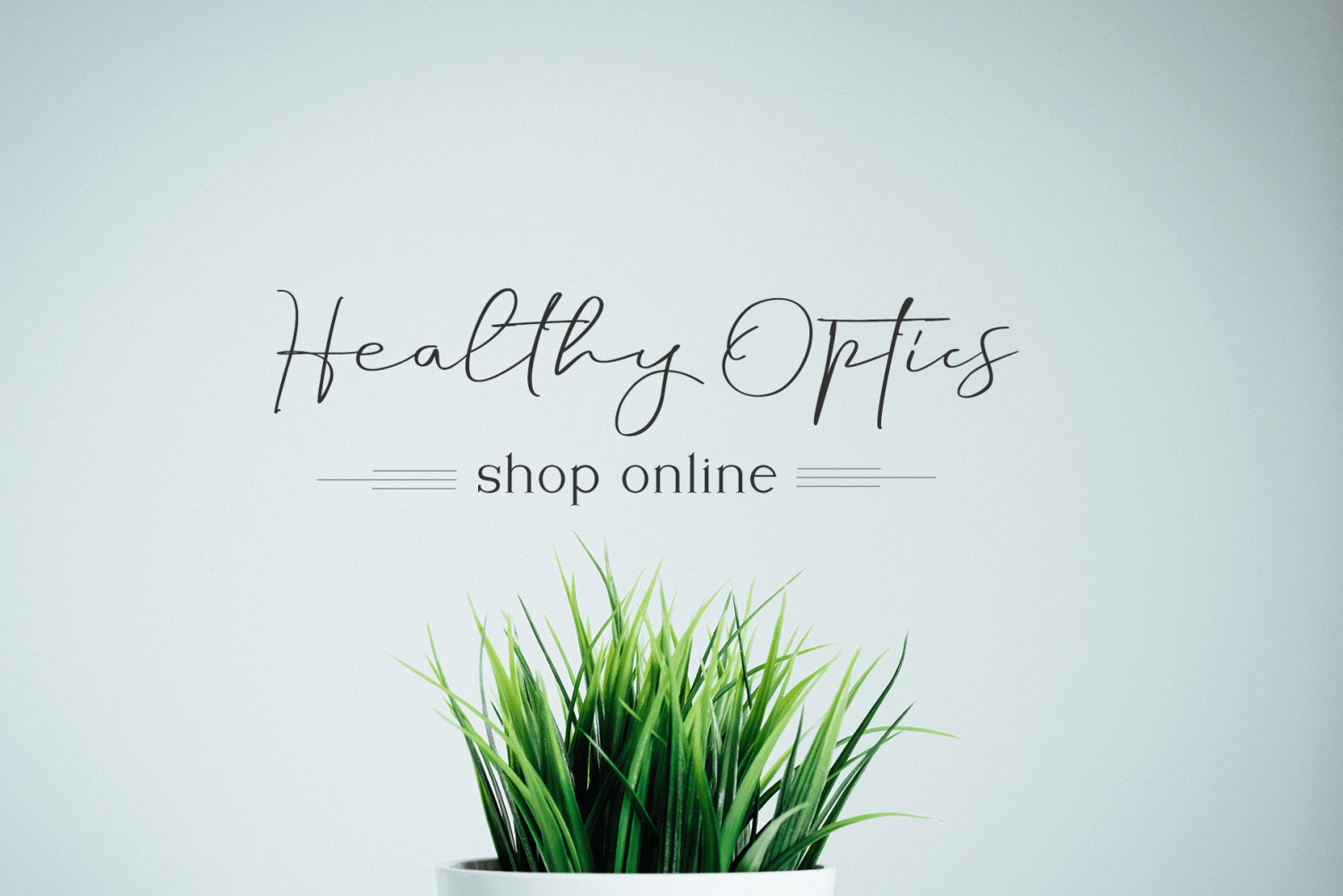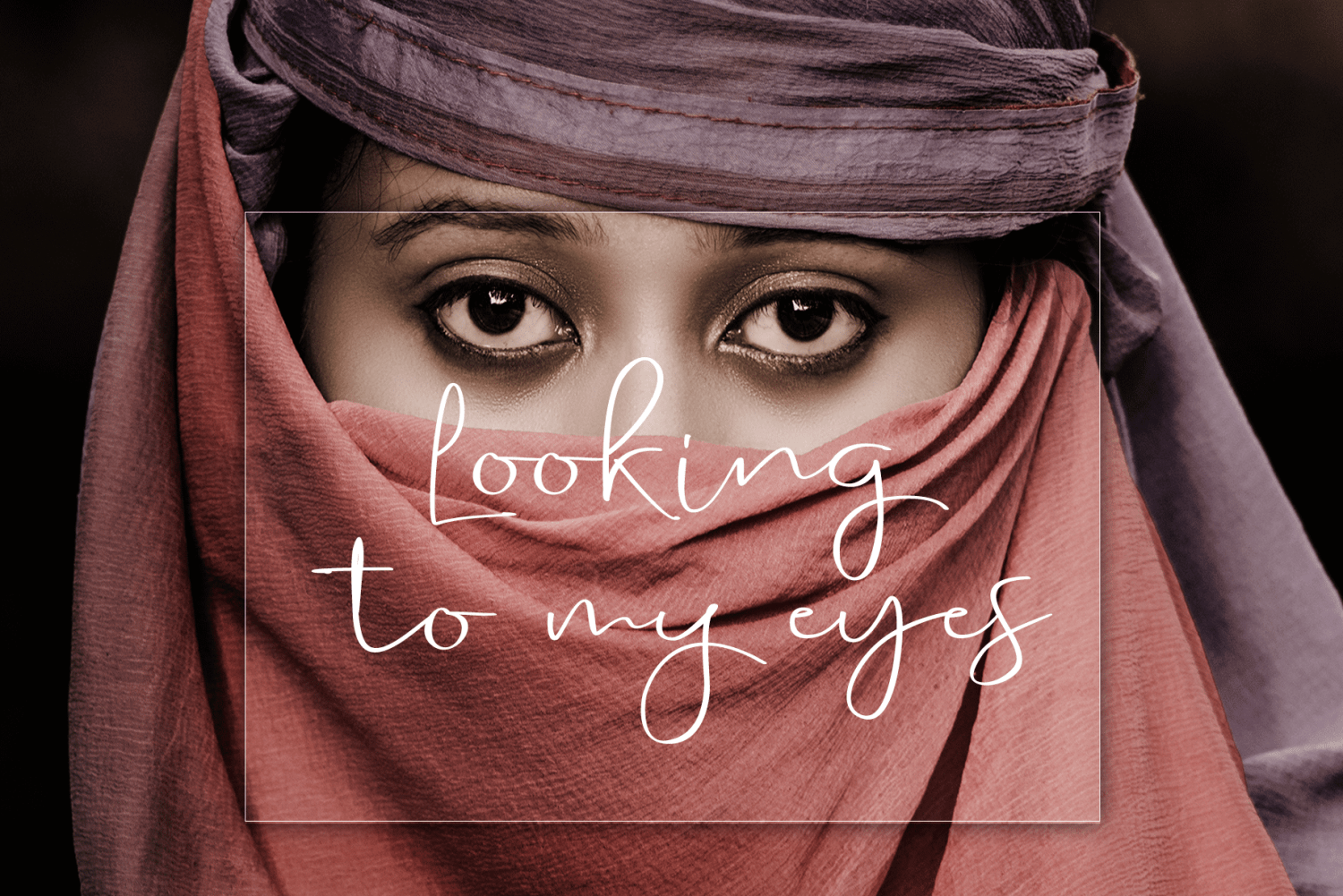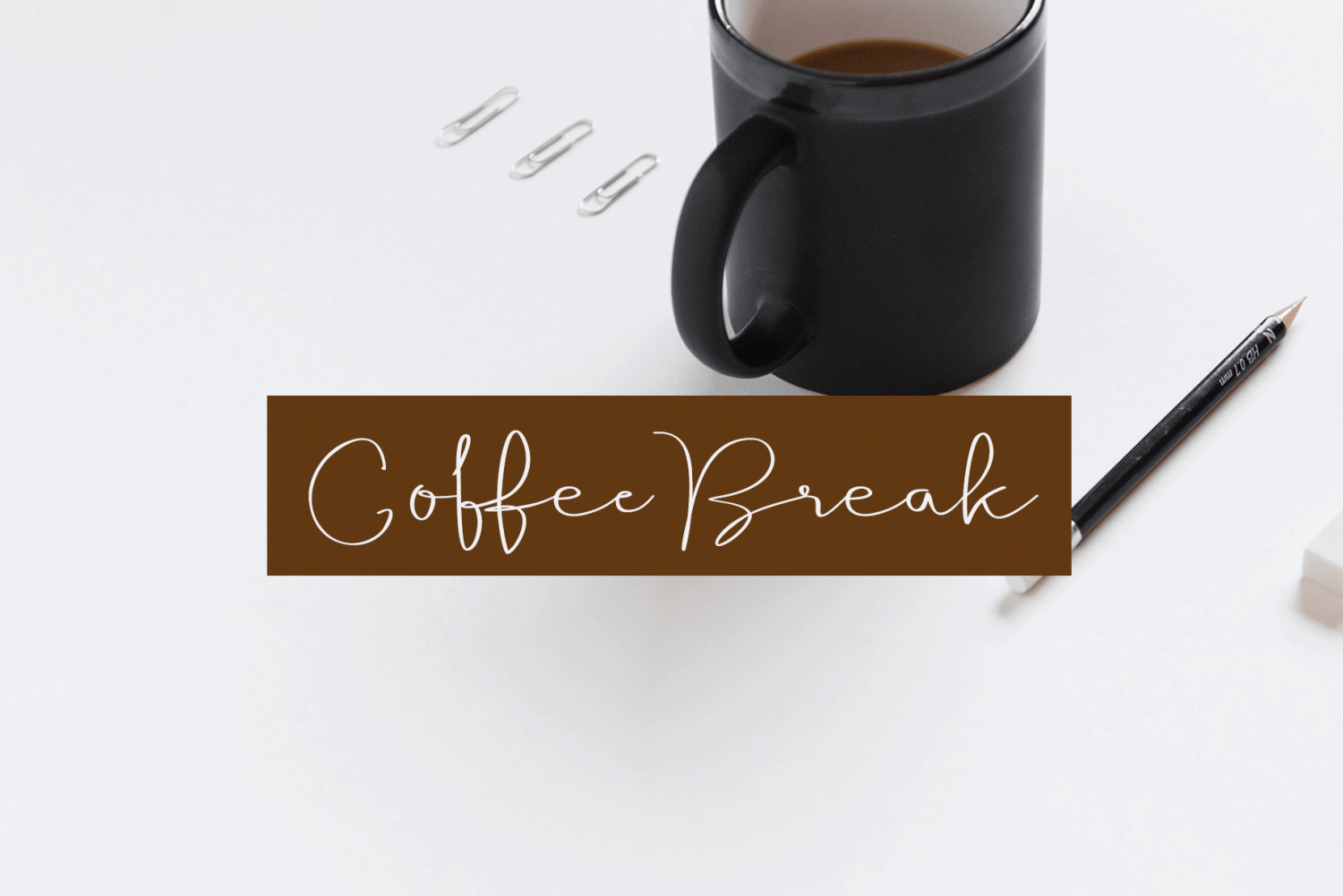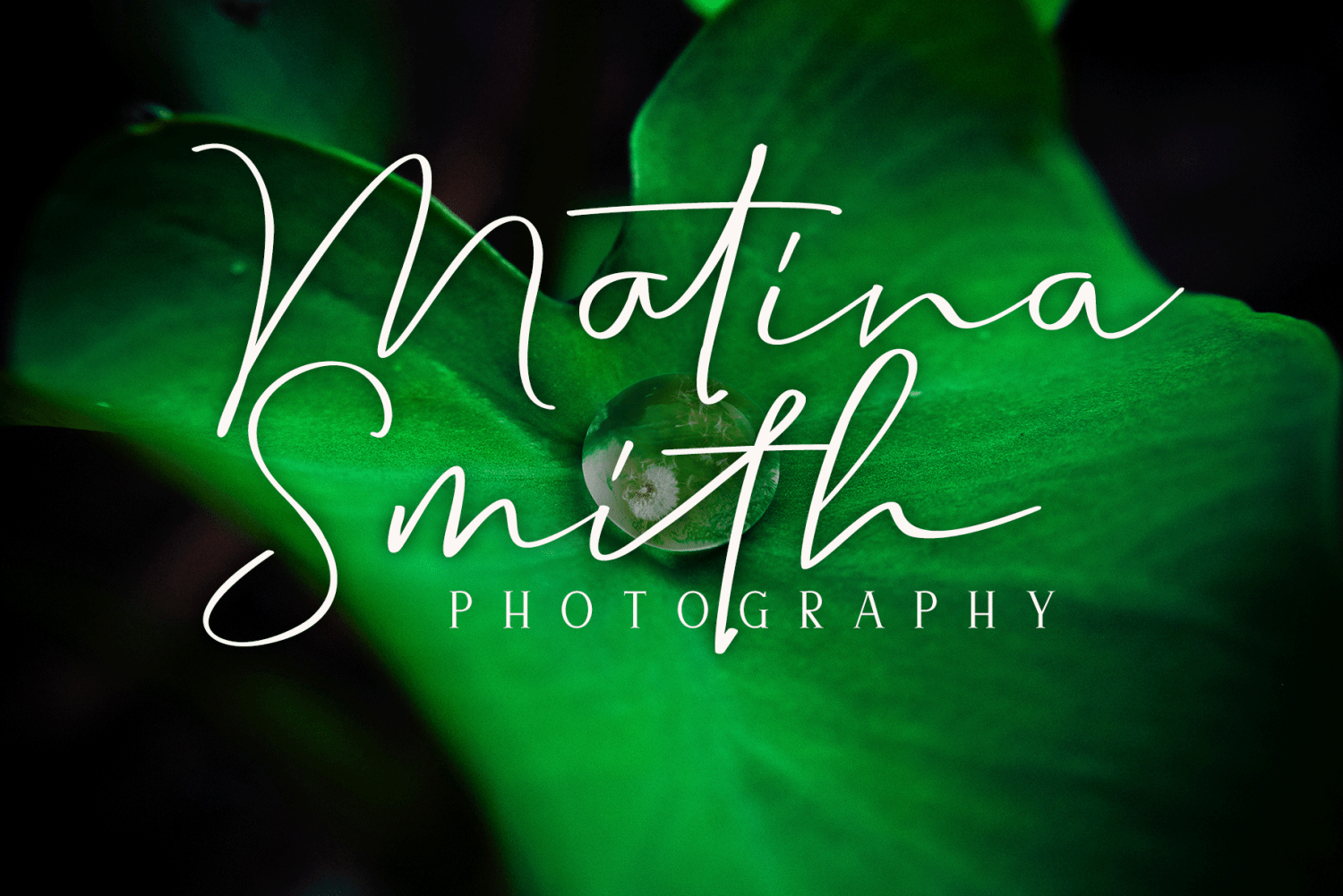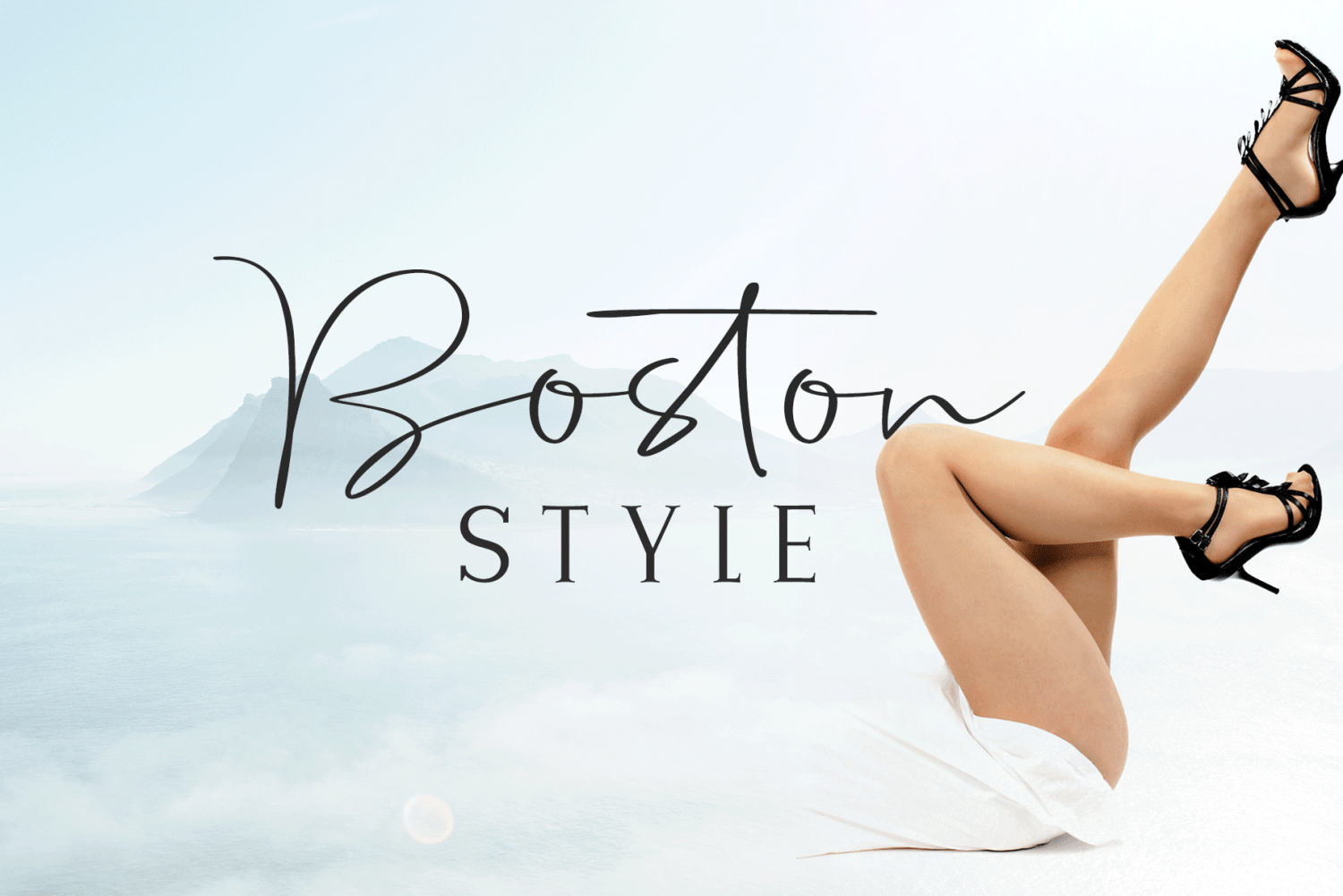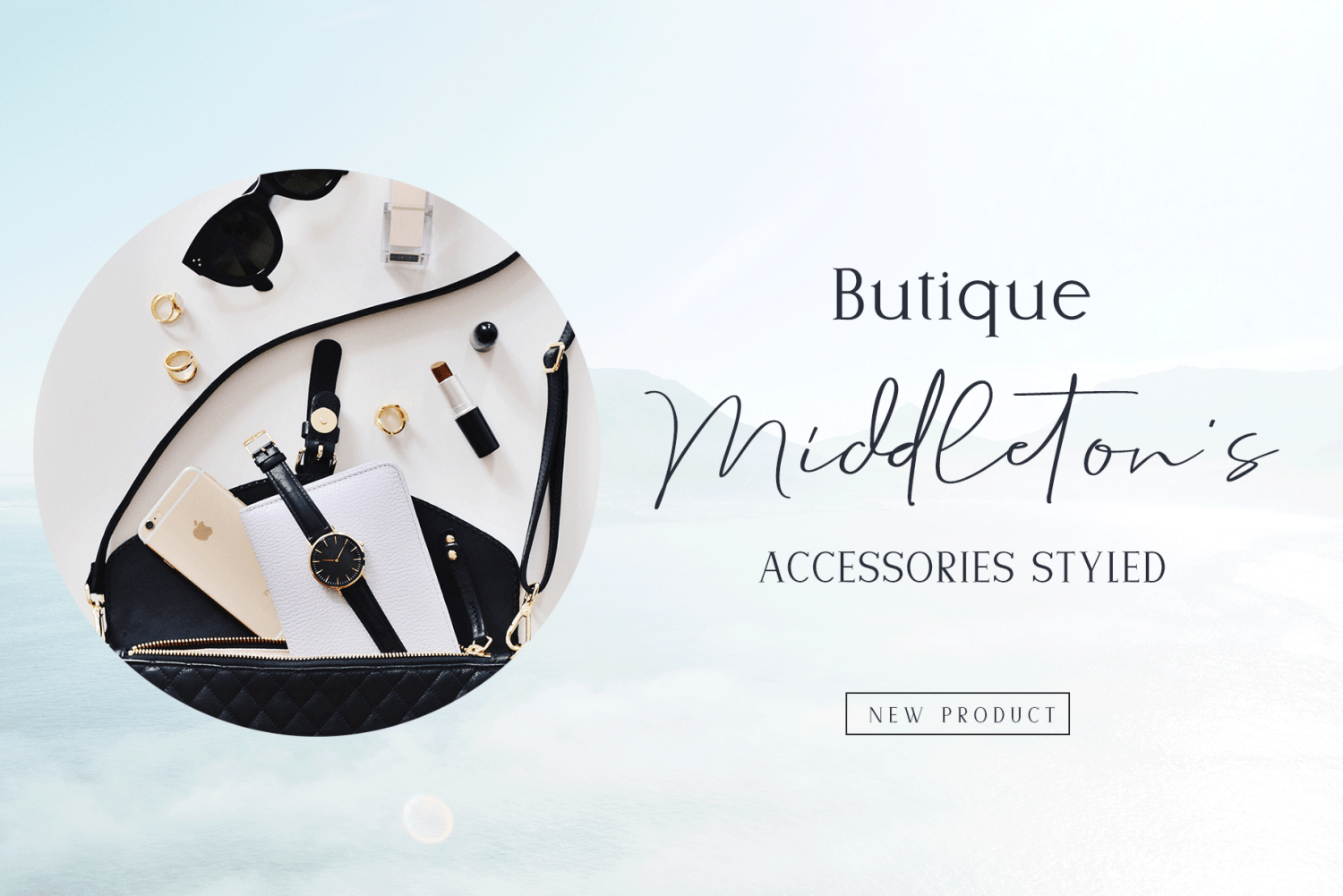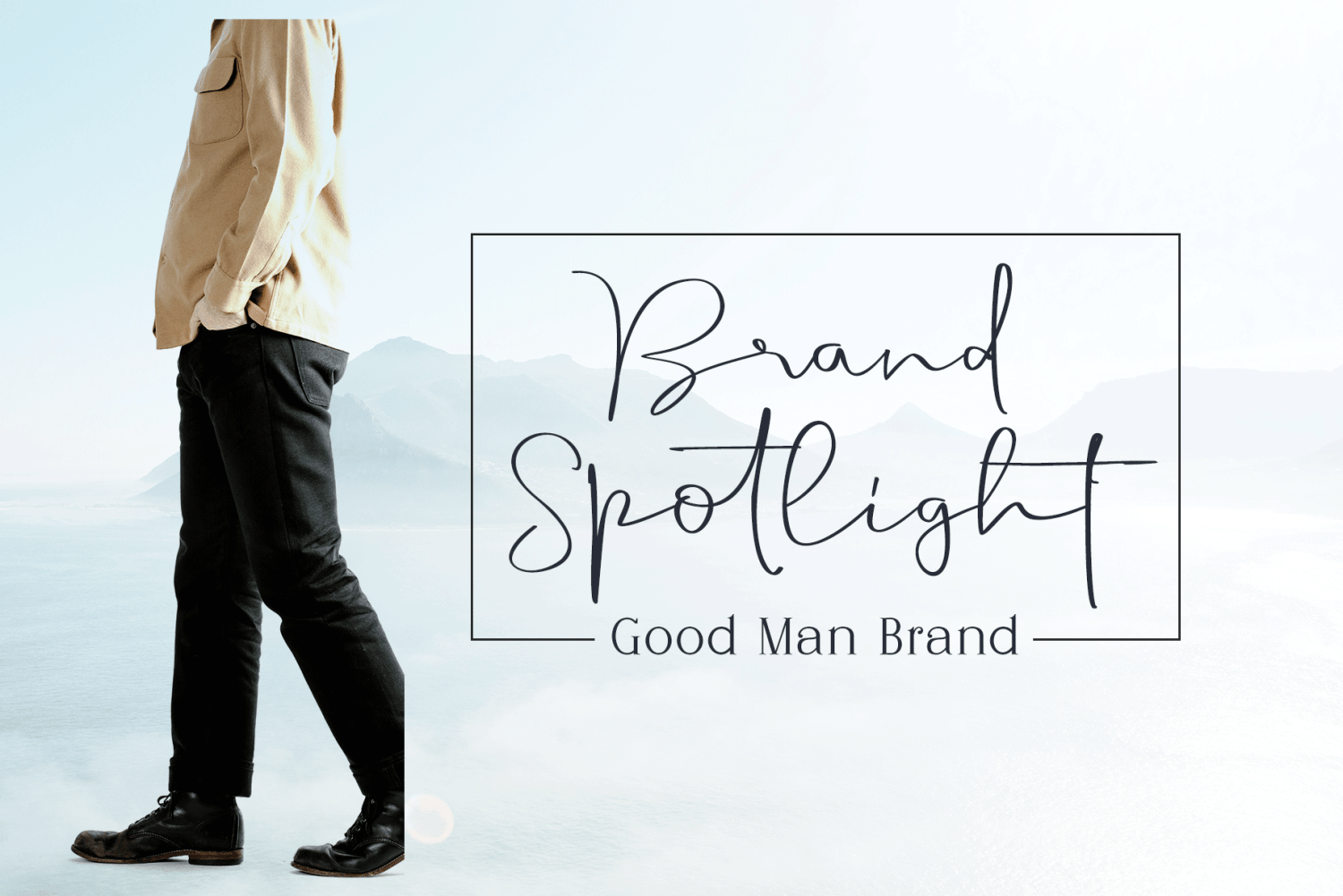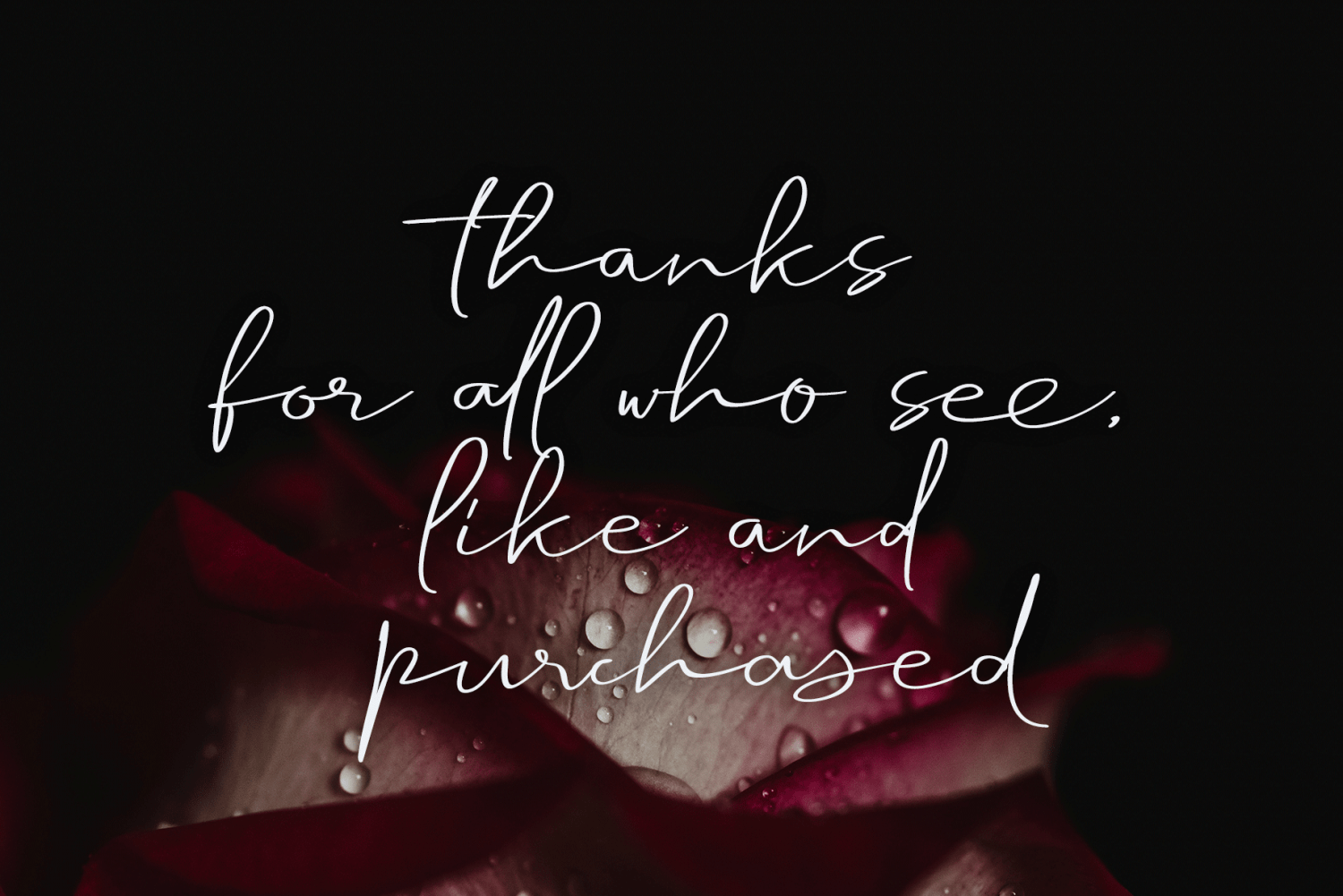
Handkerchief
Handkerchief a work that is purely handwritten and written with the use of liquid ink pens, has a natural feature. this is perfect for invitations, signatures, blogs, social media, business cards, product brands.
Handkerchief of a work that is purely hand-written, has its own characteristics. Perfect for invitations, signatures, blogs, social media, business cards, product brands.